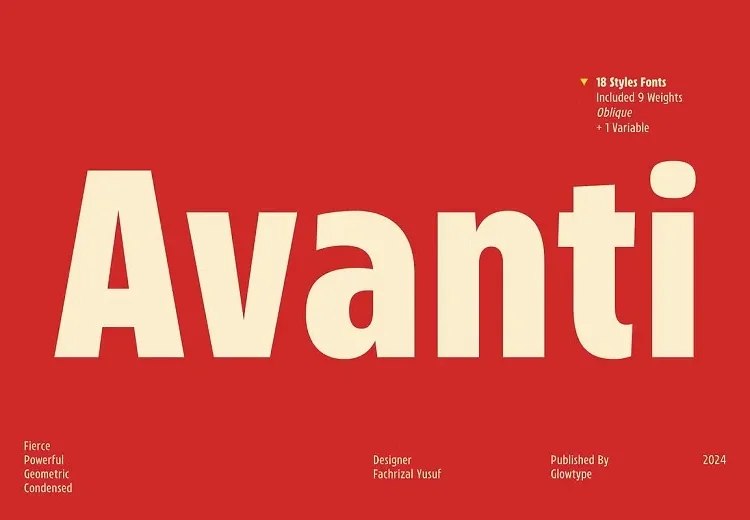
Avanti Font Family
Avanti is a sleek and modern condensed sans serif font family, embodying the Italian term for “forward.” True to its name, Avanti is crafted to give your brand a bold and dynamic presence, making a striking impression with its aggressive and contemporary style. This font isn’t just aesthetically pleasing; it’s highly functional and a pleasure to use.
Compatible with all major design applications, Avanti is perfect for a variety of needs, from marketing materials and website design to logos, packaging, ads, apparel, and merchandise. Its versatility makes it an excellent choice for any designer looking to make an impact.